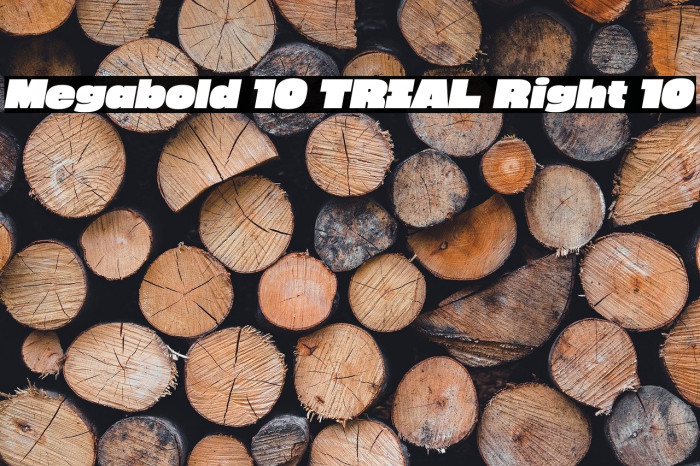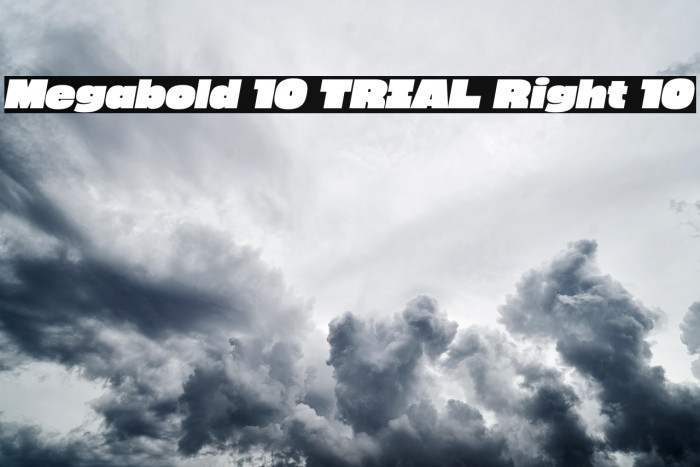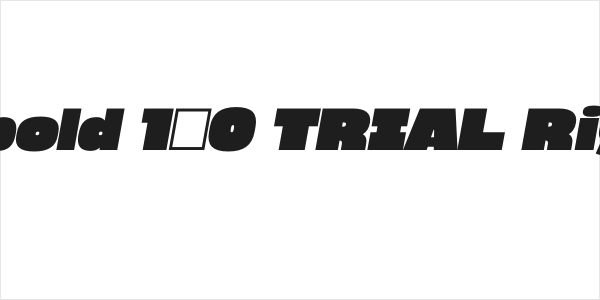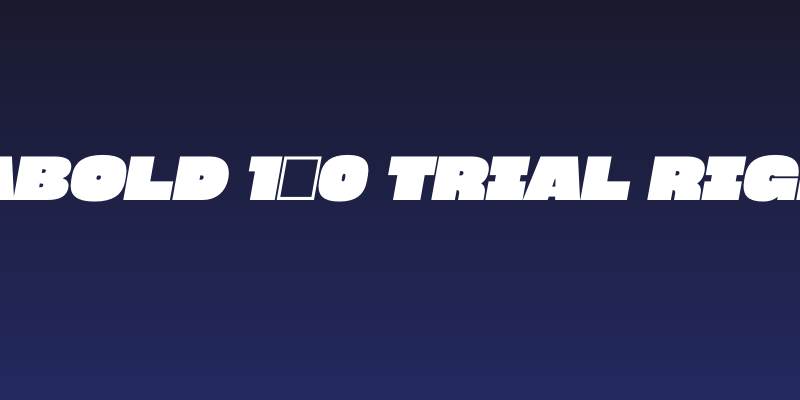
Megabold 1.0 TRIAL Right 10 Font
Megabold 1.0 TRIAL Right 10 Description
This font features a bold and impactful style with a strong presence. The characters are heavily weighted, giving them a powerful and commanding appearance. The strokes are thick and consistent, providing a uniform look across all letters and numbers. The design is modern and sleek, with a slight slant that adds a dynamic feel. The uppercase and lowercase letters maintain a cohesive style, while the numbers are equally bold and prominent. The special characters are designed to match the overall aesthetic, ensuring a seamless integration into any design project.